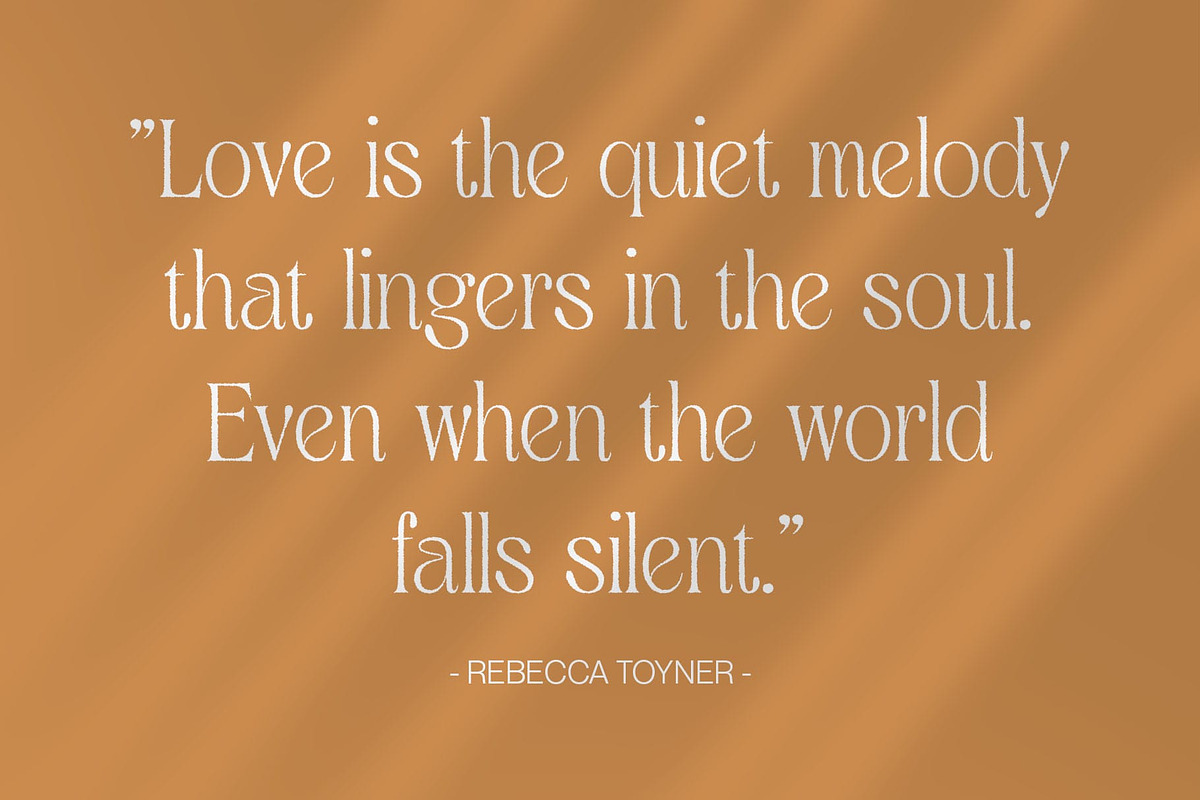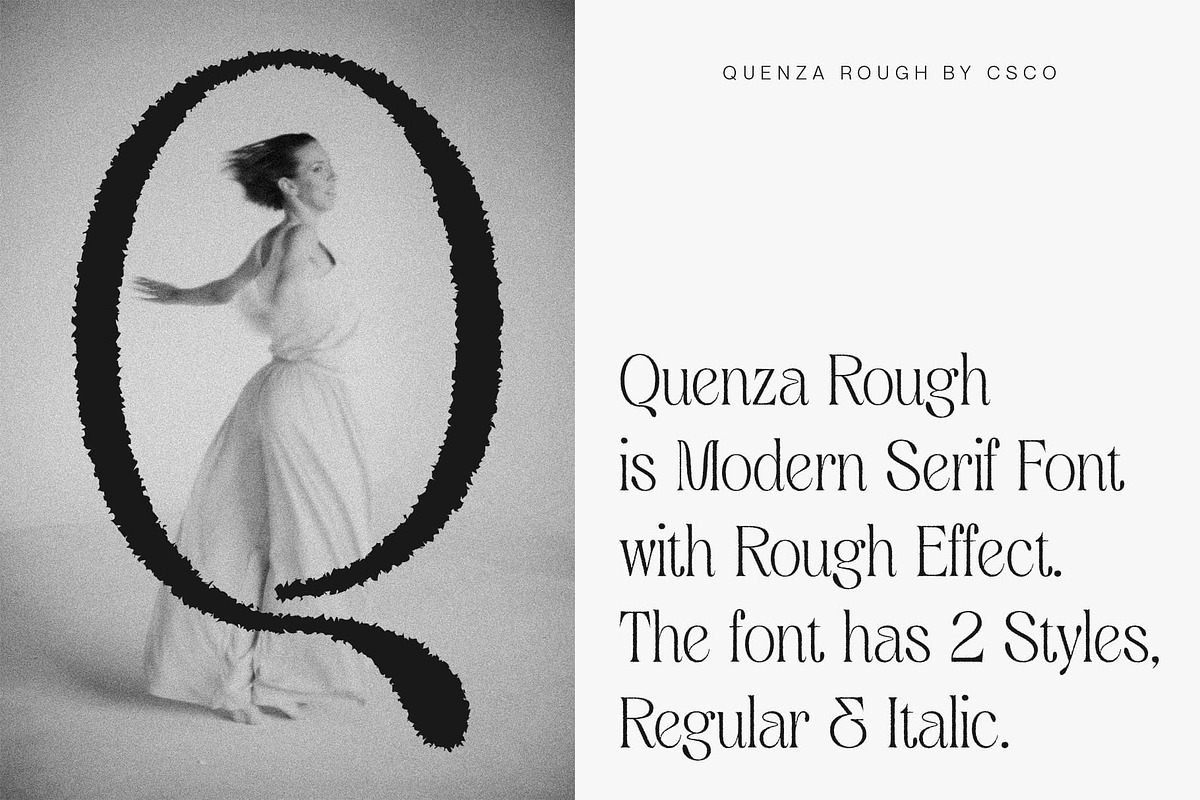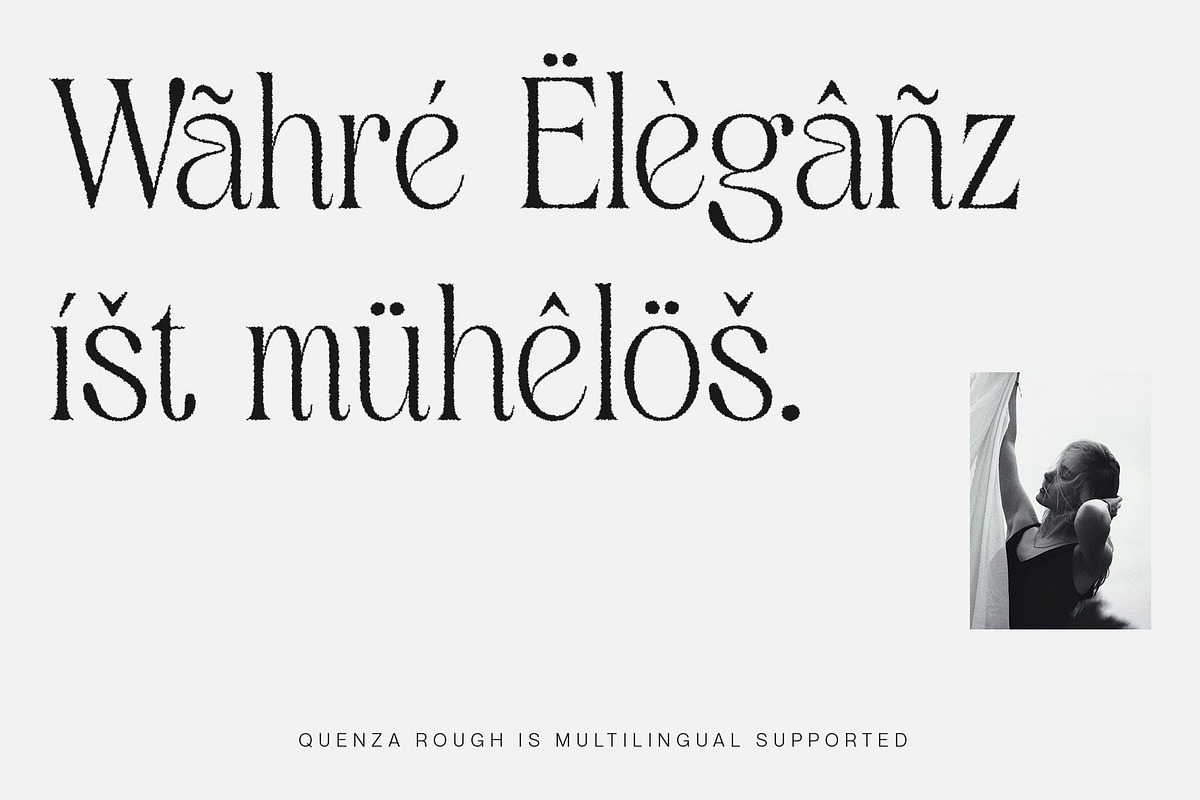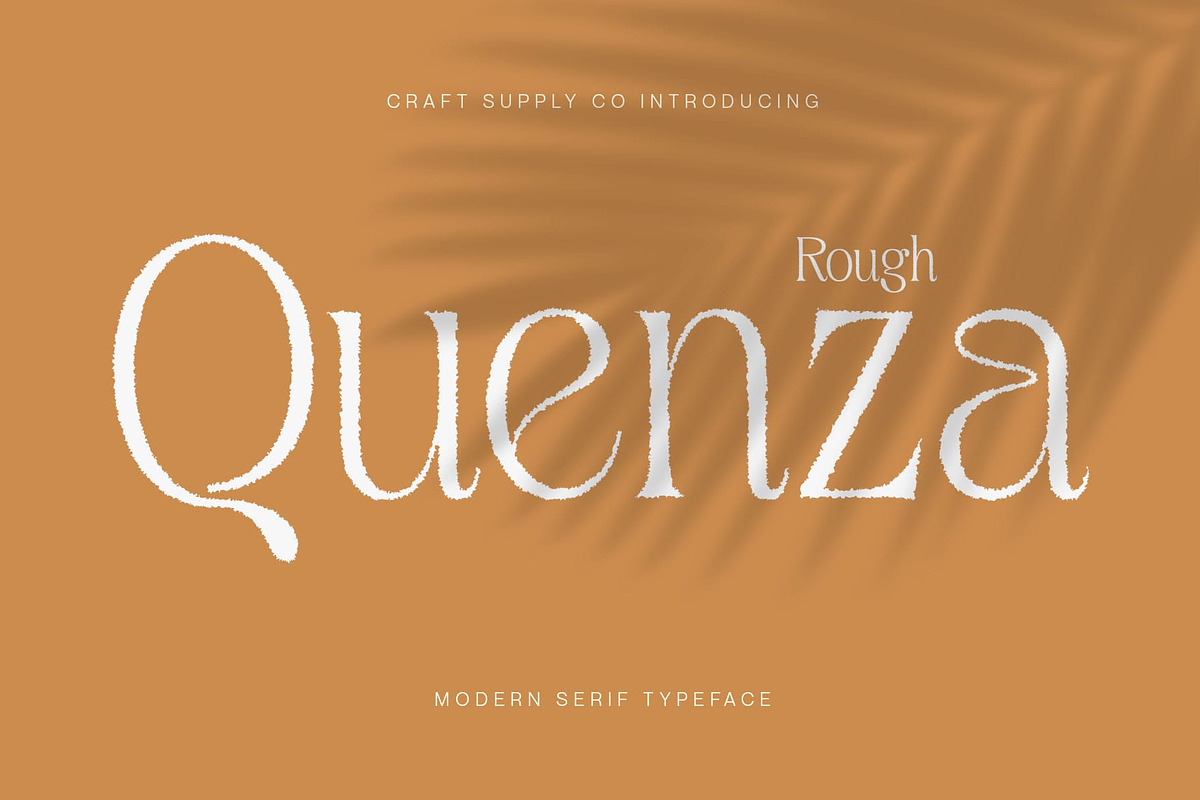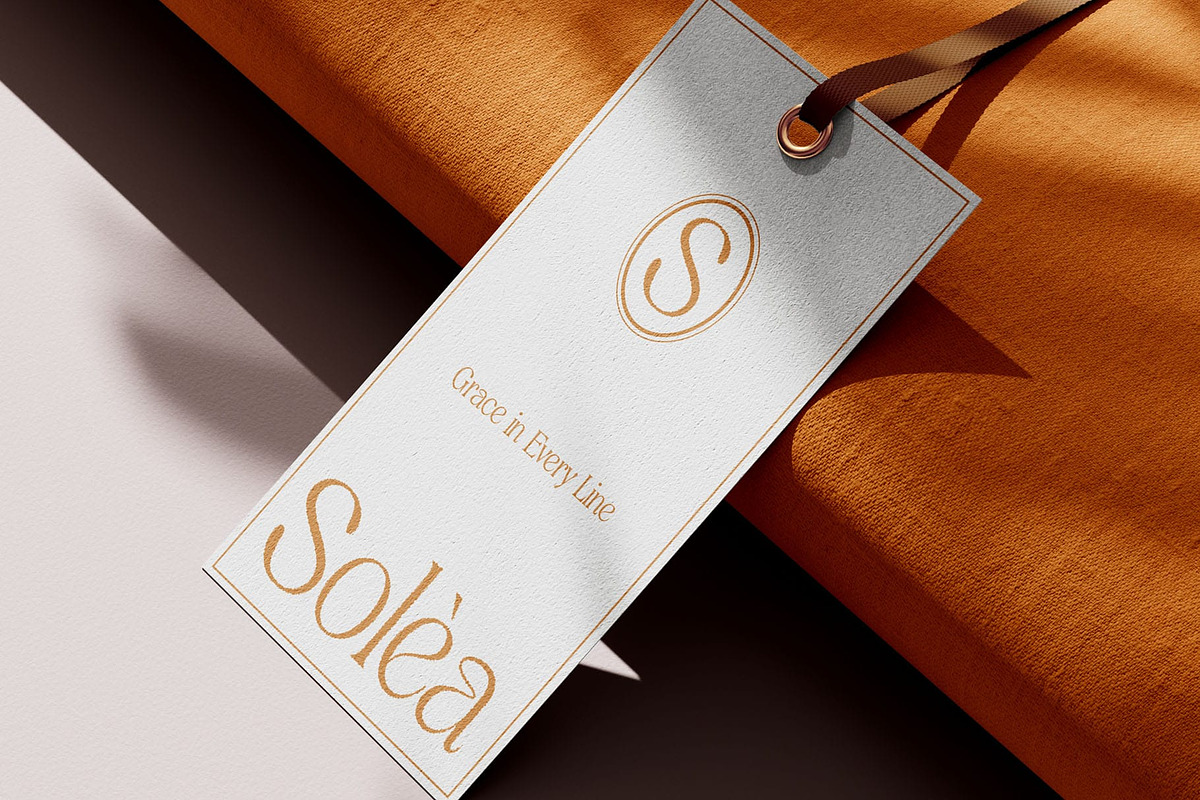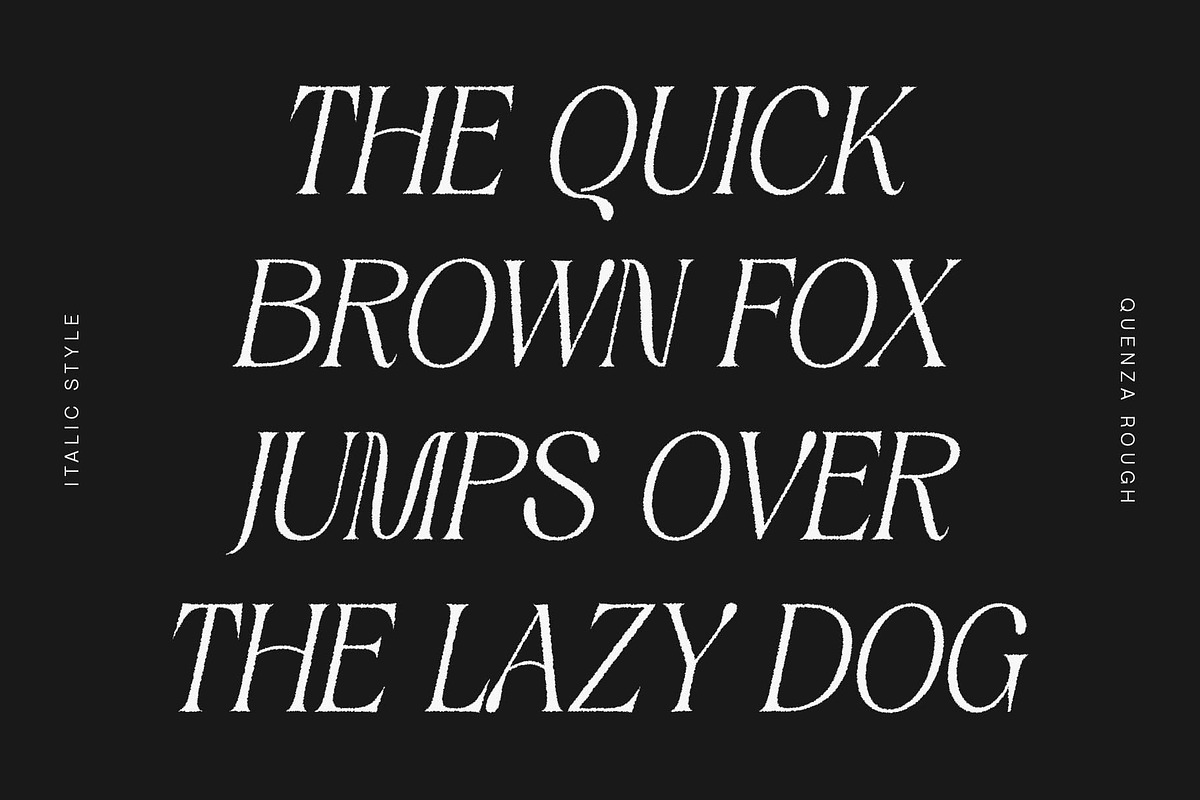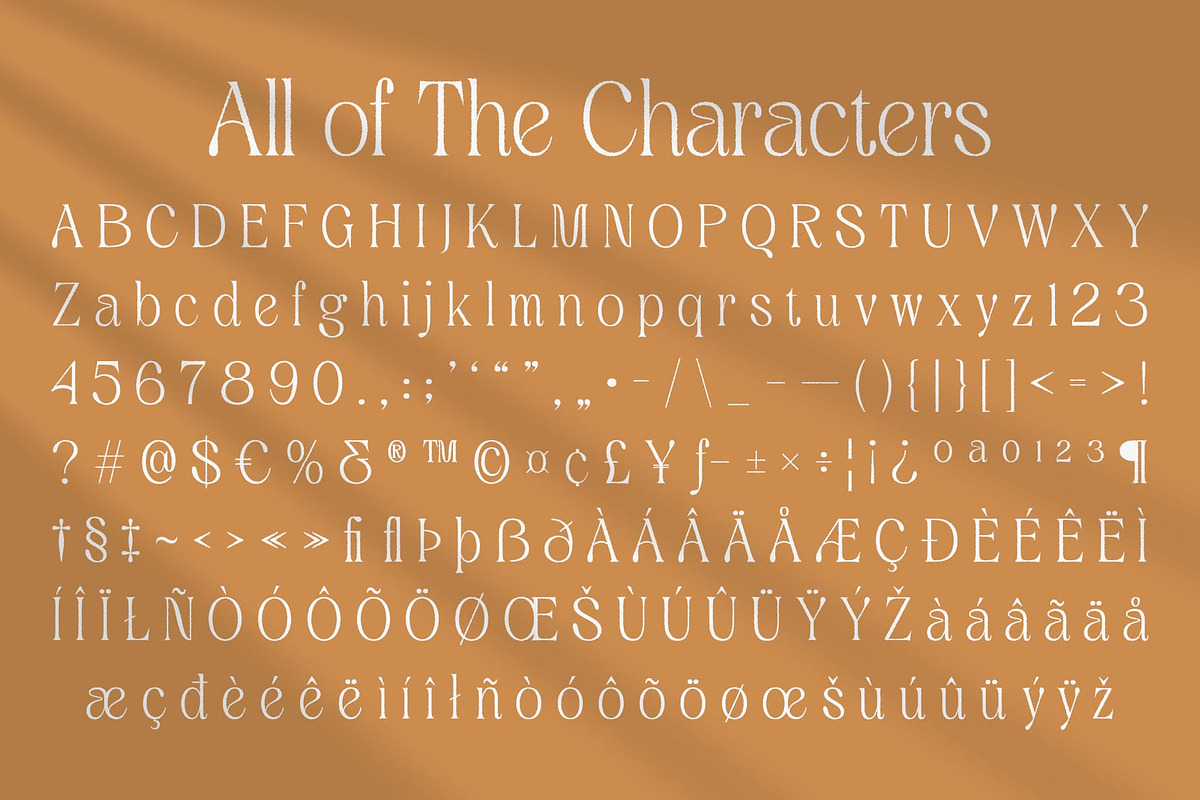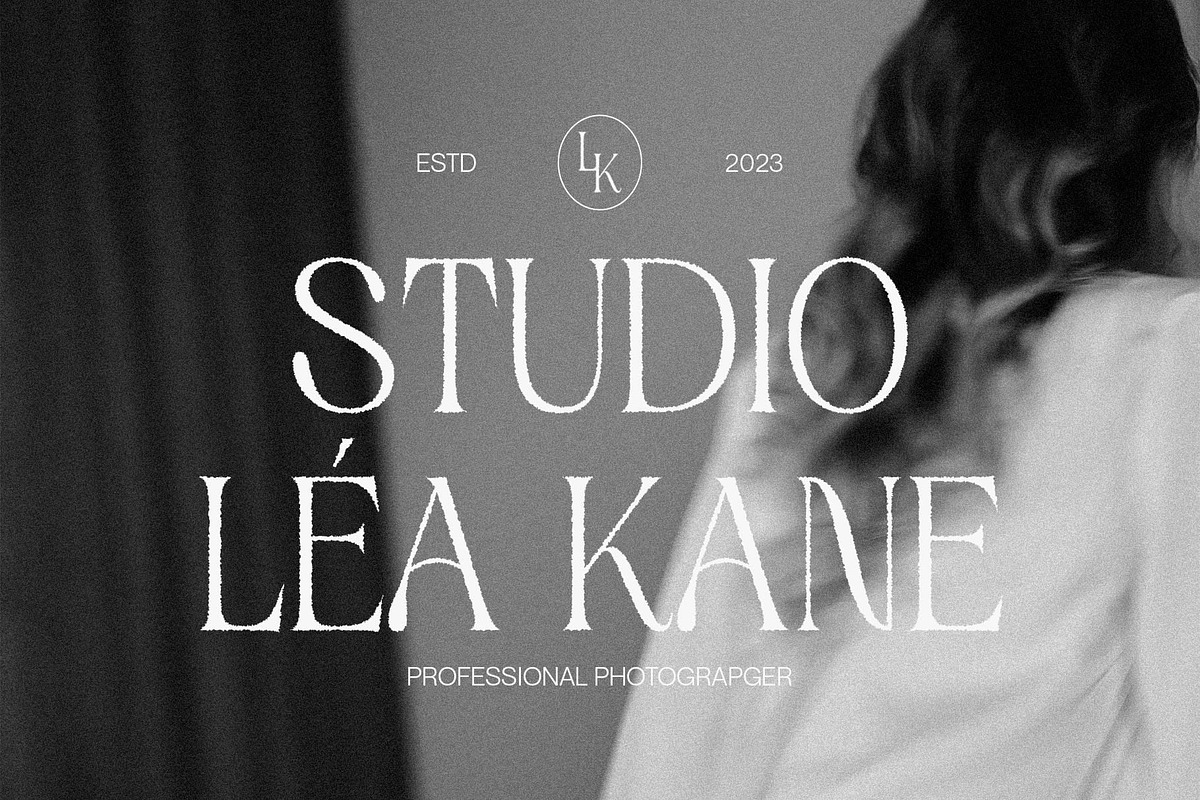
Quenza Rough
Quenza Rough Font – Refined Sophistication Meets Raw Texture
Clean Structure with Elegant Proportions Quenza Rough is a modern serif font that features a clean, contemporary structure with graceful proportions. Its balanced letterforms and sharp serif details create a polished and professional appearance, ideal for high-end visual design.
Refined Serifs Enhanced by Rough Texture The classic elegance of Quenza is elevated by a distinctive rough texture, adding warmth and artisanal character to each glyph. This textured finish introduces a tactile, organic feel while preserving the clarity and legibility of a modern serif style. What sets Quenza Rough apart is its distinctive rough texture. The surface irregularities create a warm, handmade feel that softens the otherwise crisp lines of the serif structure. This tactile quality adds character and visual depth, making the font feel more personal, natural, and artisanal.
Perfect Blend of Classic and Contemporary Quenza Rough strikes a visual harmony between tradition and modernity. The refined serif forms reference timeless typography, while the rough surface gives it a modern, handmade edge—making it suitable for projects that seek to bridge elegance and authenticity.
Versatile for Elegant and Creative Applications Whether you’re designing editorial layouts, luxury branding, packaging, or artistic visuals, Quenza Rough delivers sophistication with soul. It’s a perfect choice for creatives looking to infuse a refined serif design with depth, personality, and a touch of raw charm.